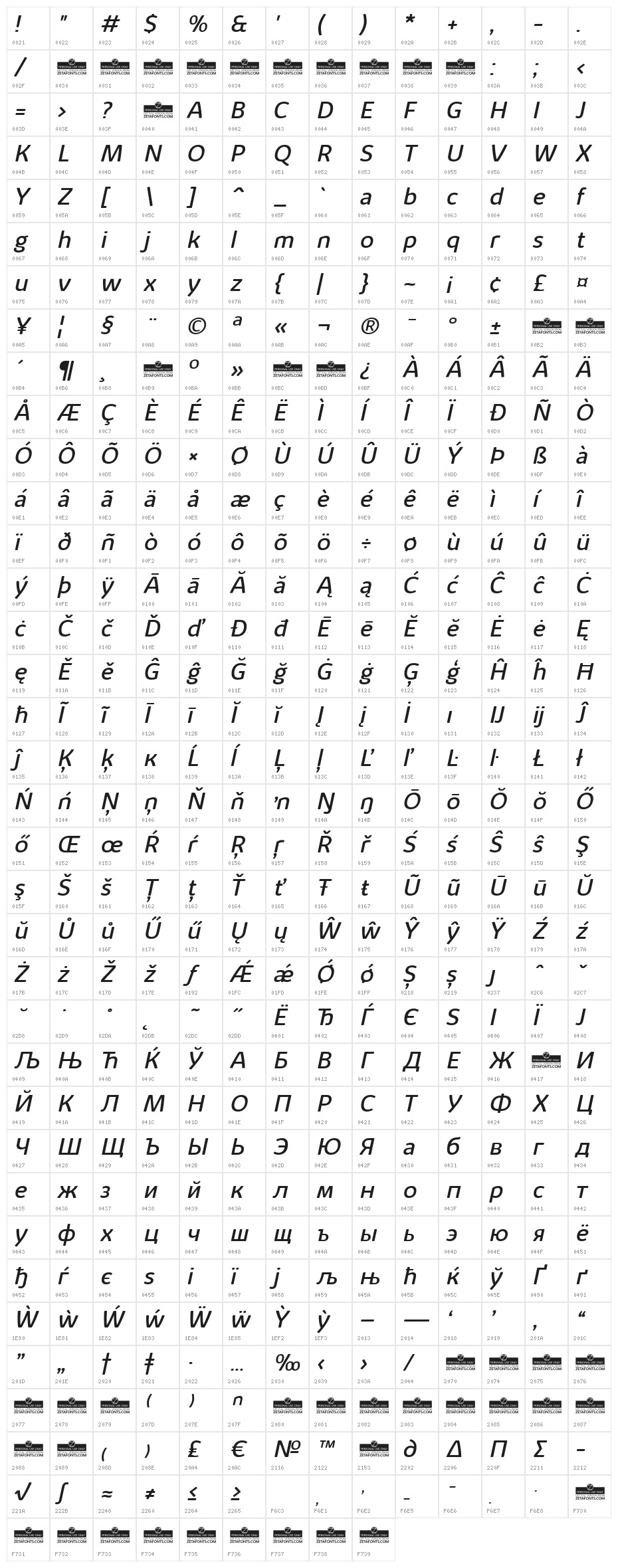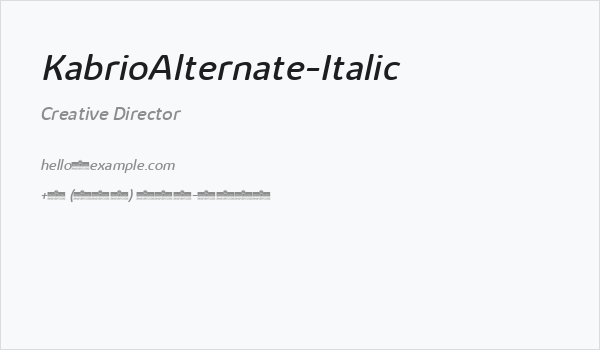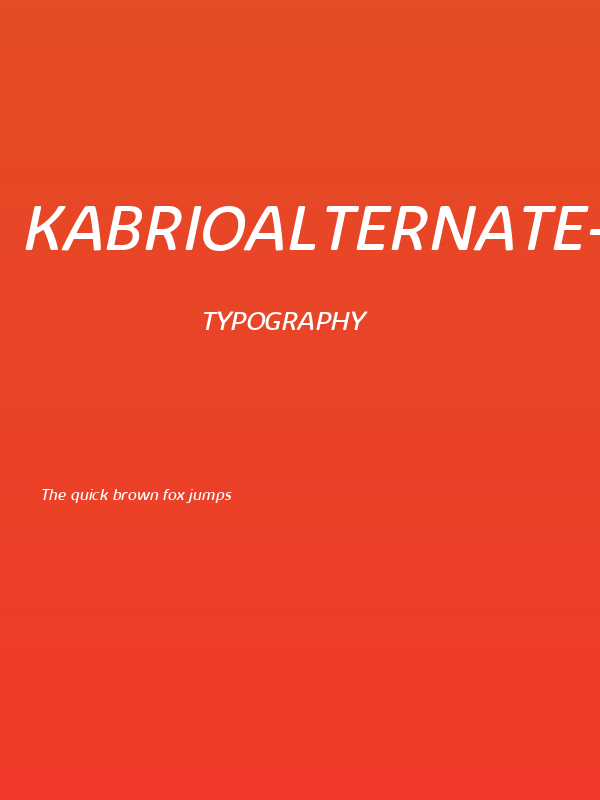
KabrioAlternate-Italic Font
KabrioAlternate-Italic Description
This font features a sleek and modern design with a slight italic slant, giving it a dynamic and forward-moving appearance. The characters are clean and well-defined, with smooth curves and a consistent stroke width that enhances readability. The uppercase and lowercase letters maintain a harmonious balance, while the numerals and special characters are crafted with precision. This font exudes a contemporary vibe, making it suitable for various digital and print applications.
| Proposed Projects | Ideal for branding projects, modern websites, digital interfaces, and print media where a contemporary and clean look is desired. |